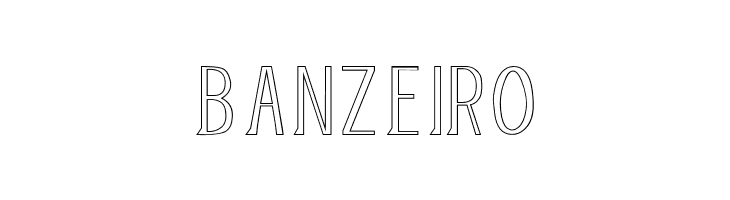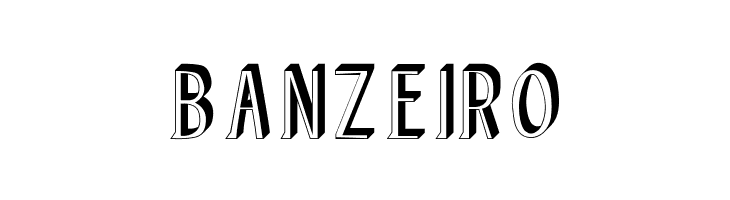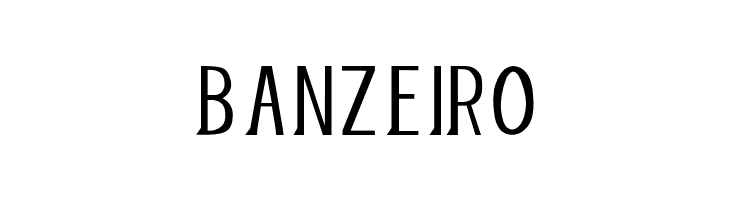
A modern, outlined font with geometric shapes and high legibility.
A modern, elegant sans-serif font with tall, condensed characters and consistent stroke width.
A bold, shadowed font with a vintage, three-dimensional look.
A modern outlined font with geometric, bold uppercase letters.
A modern serif font with tall, narrow letterforms and subtle serifs.
A bold, shadowed font with a vintage, three-dimensional style.